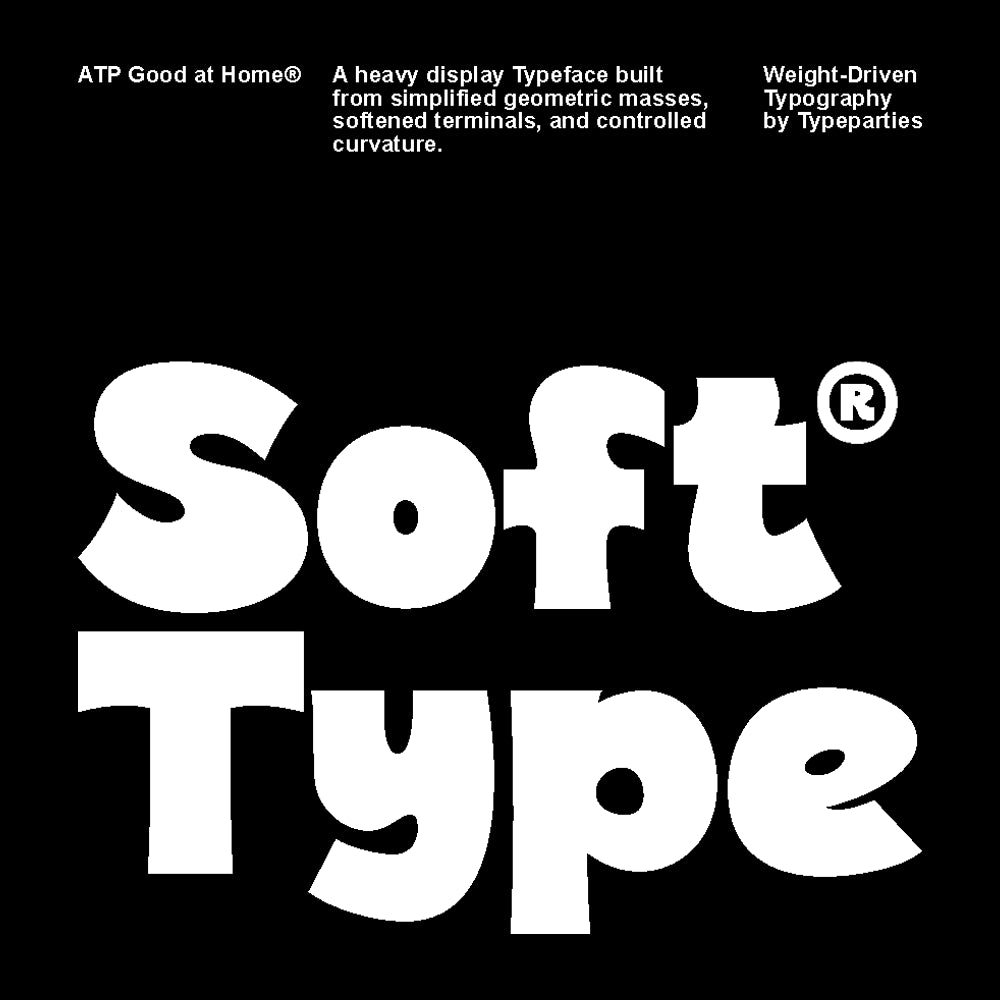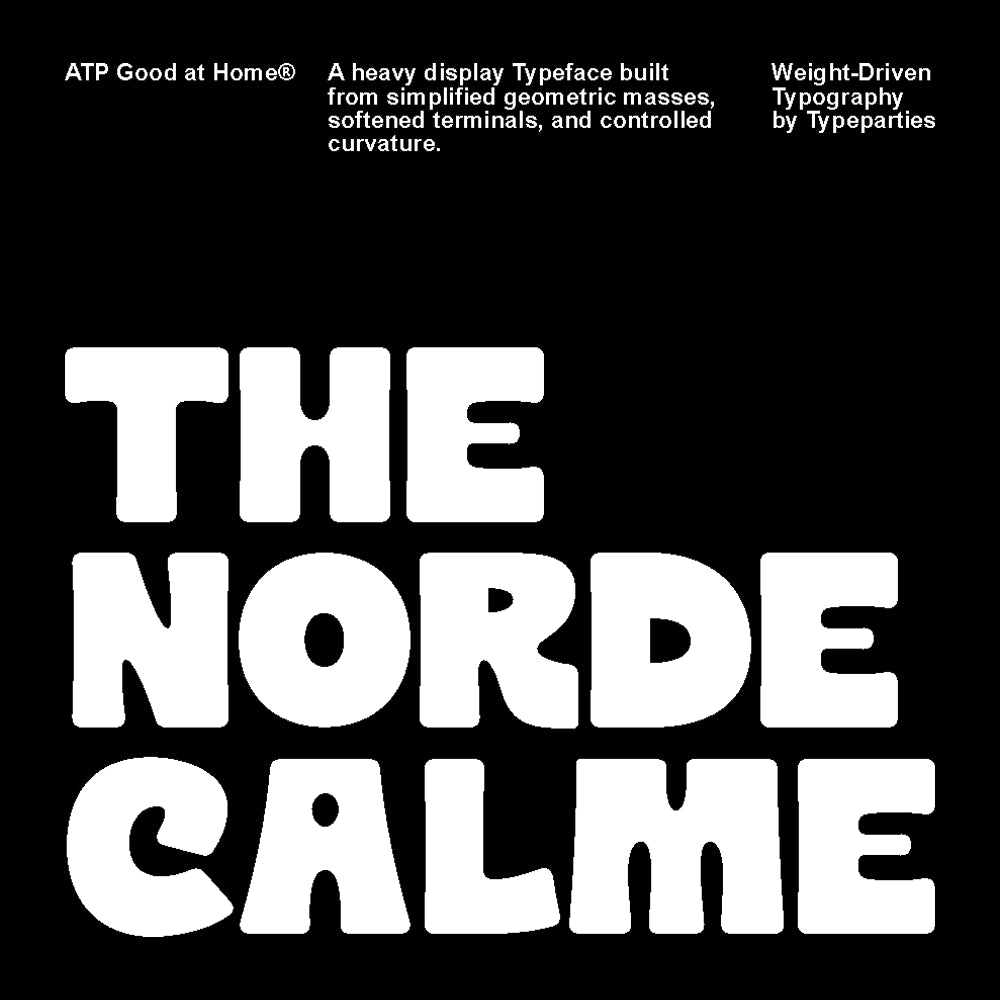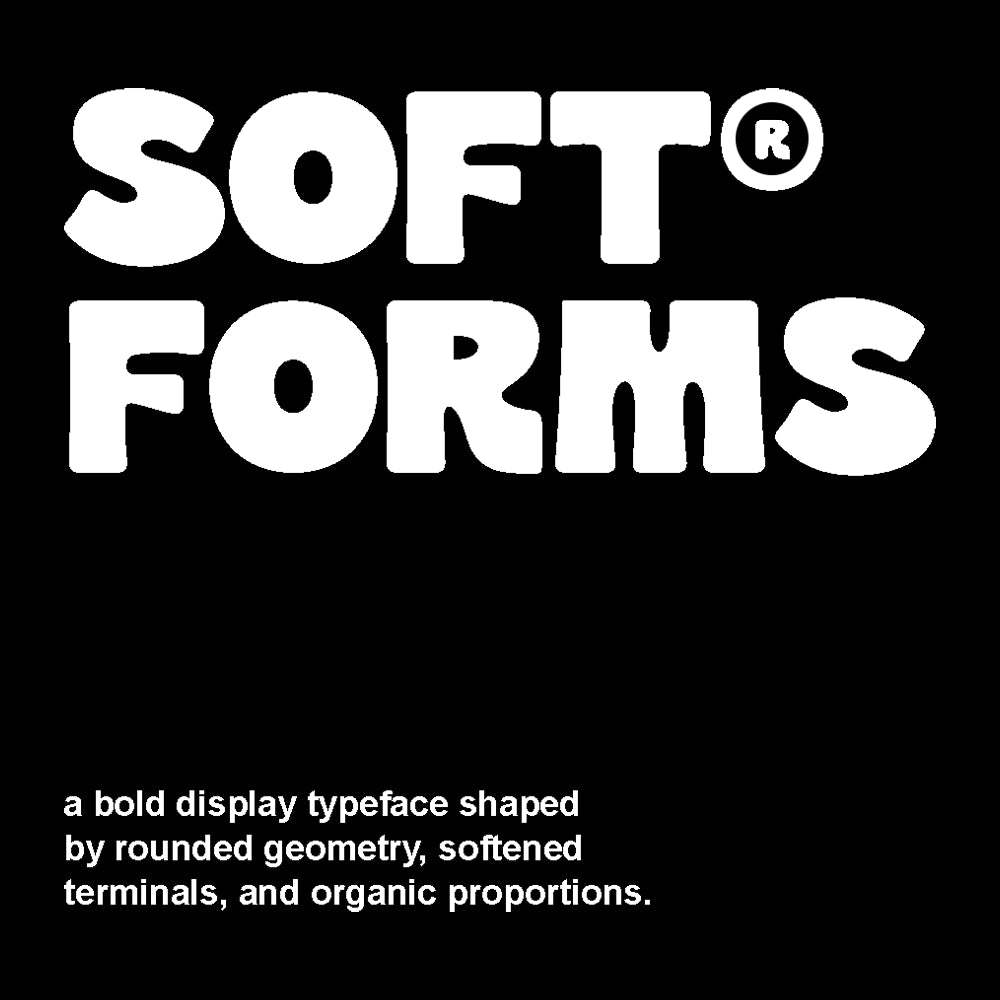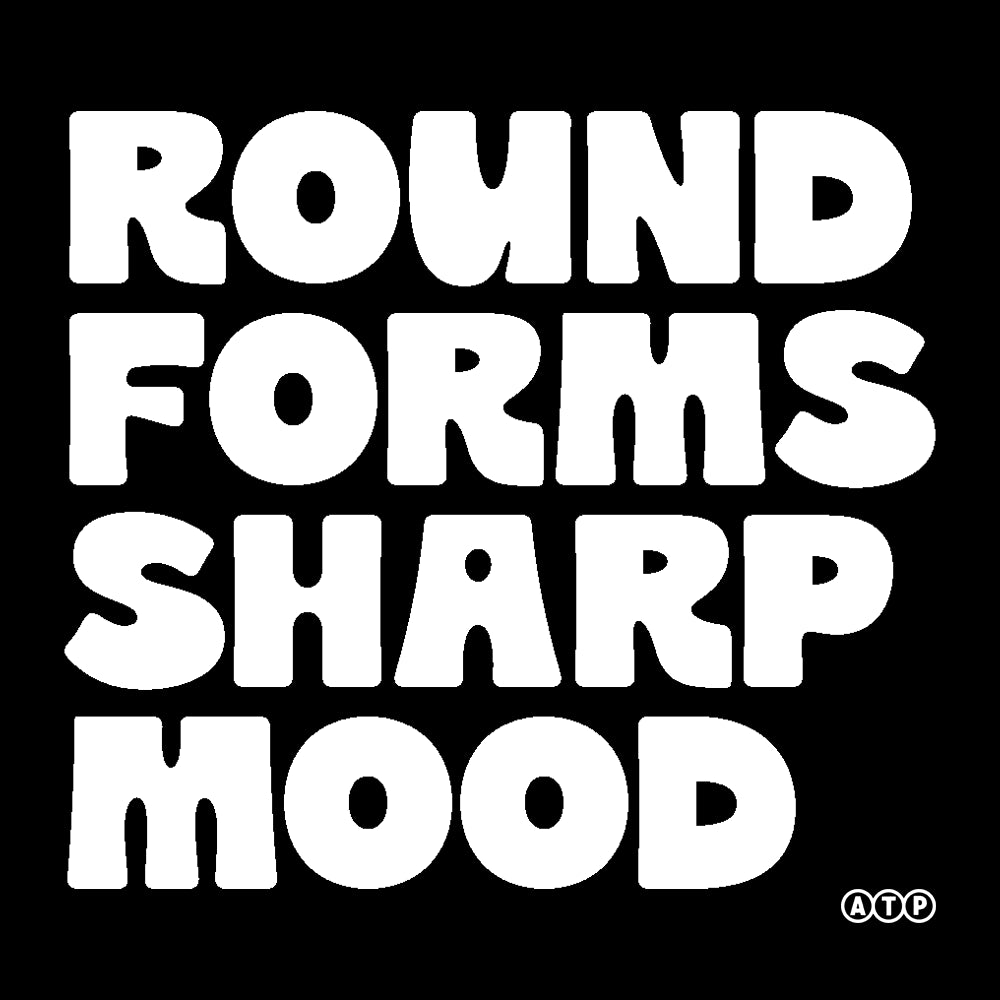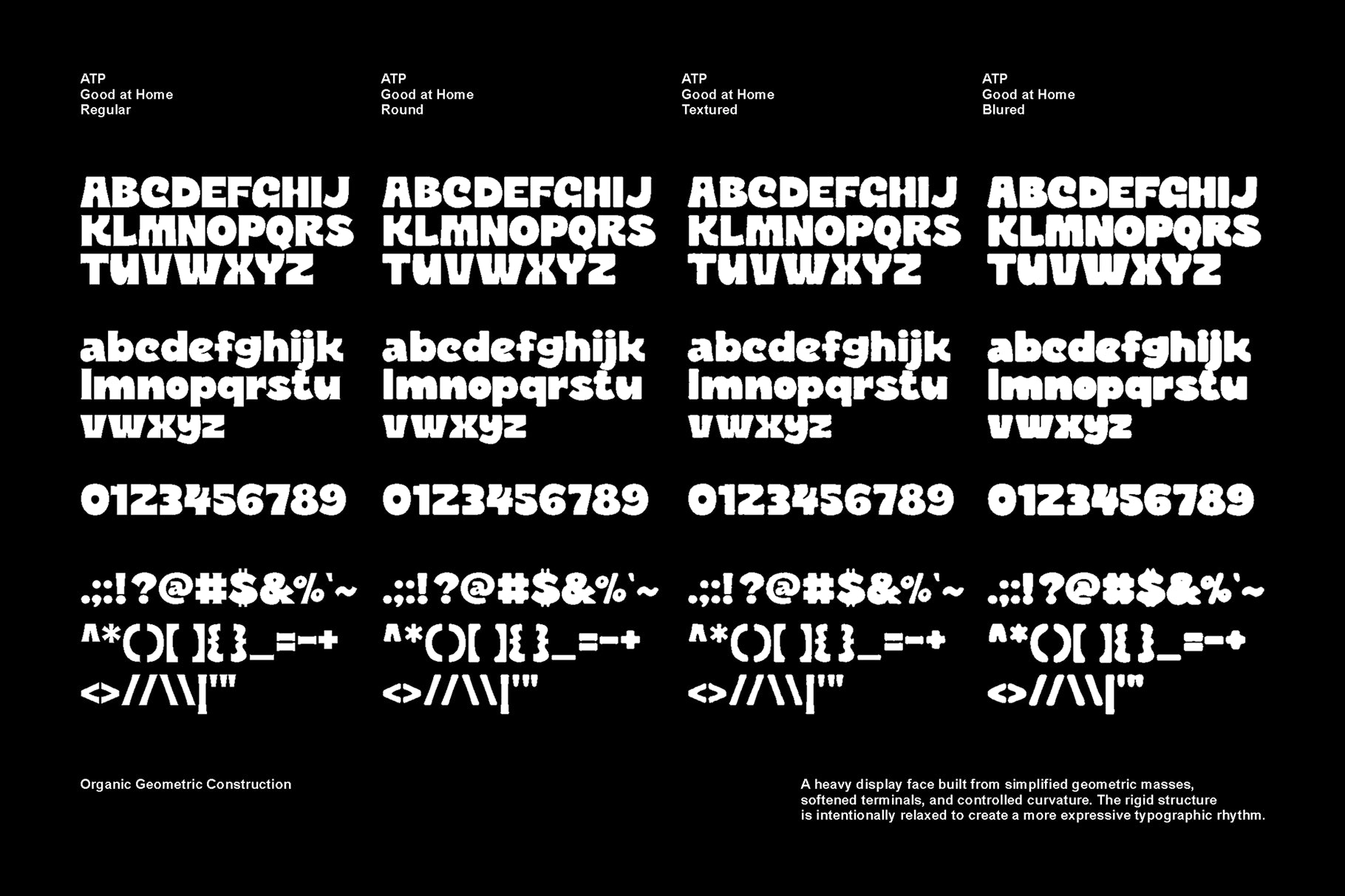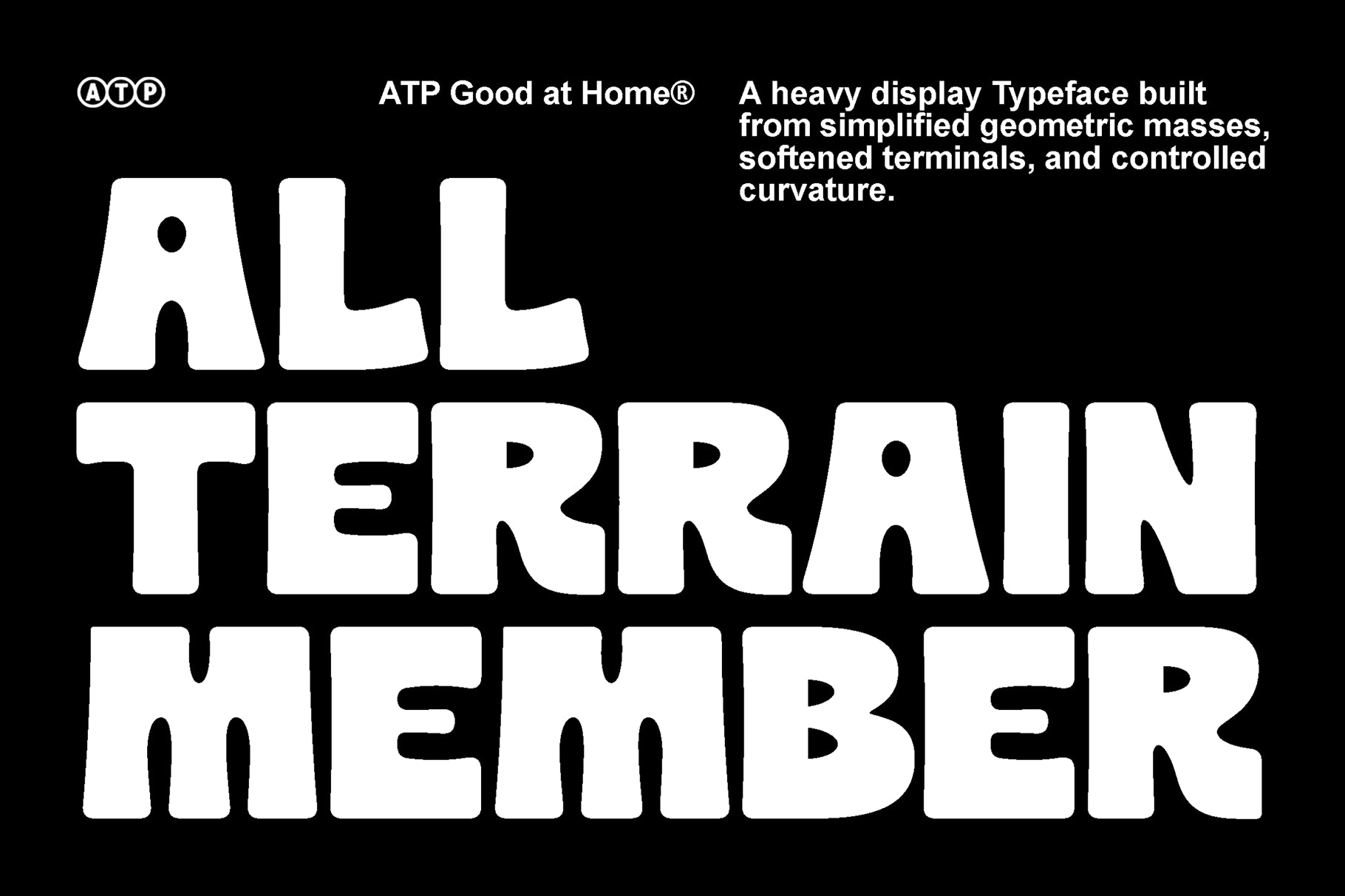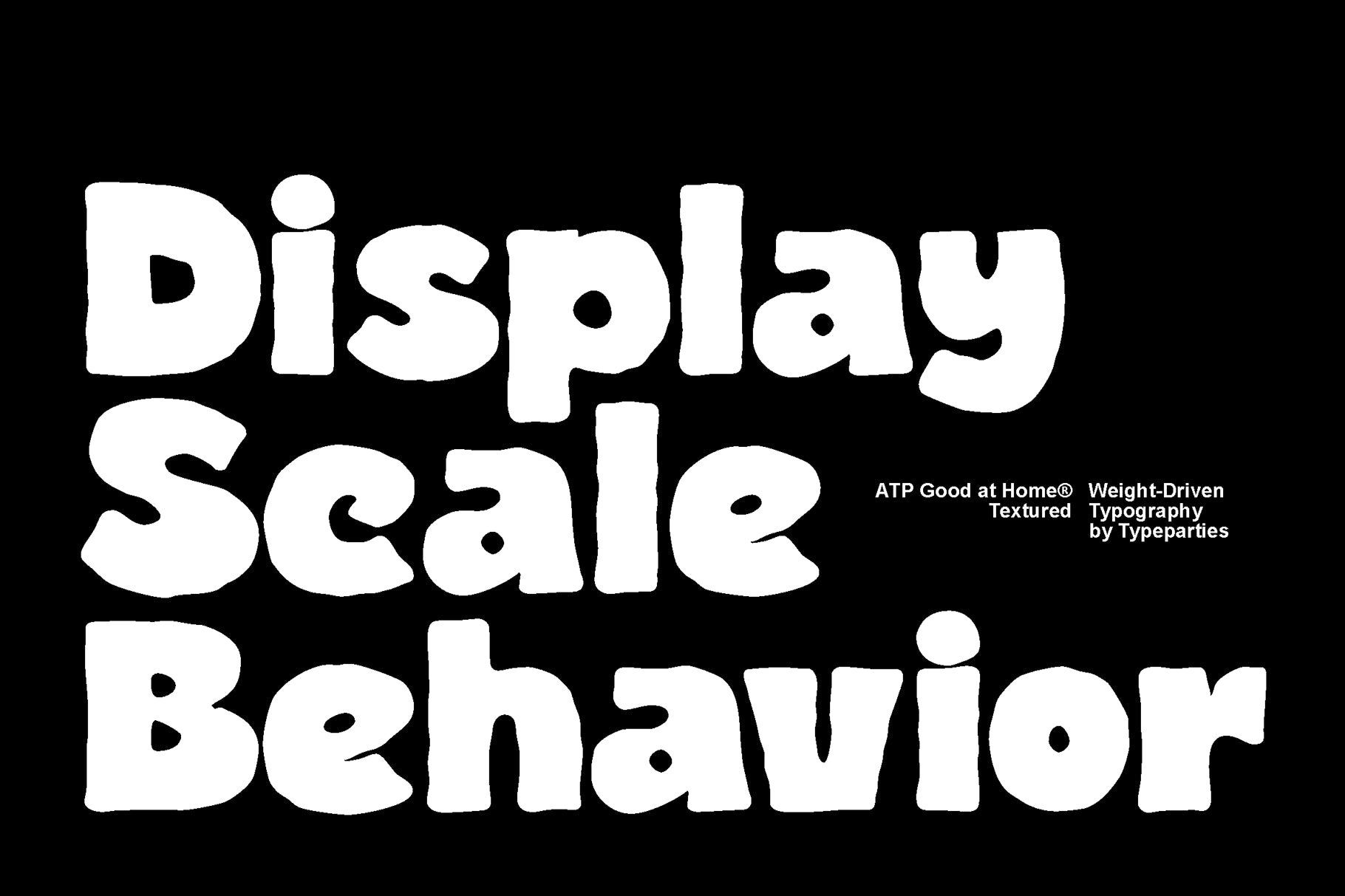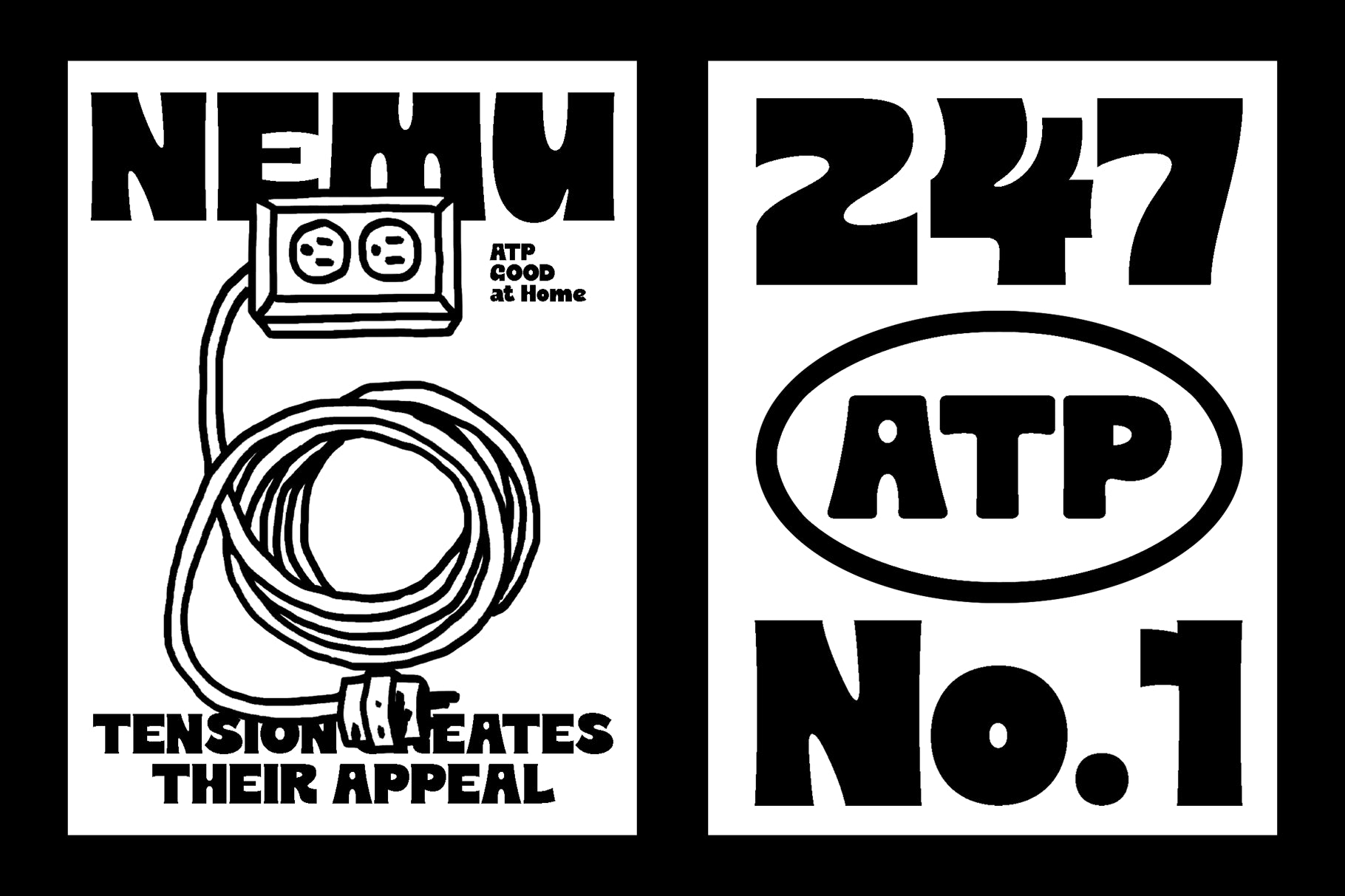
Good at Home - Chunky Display Typeface
Good at Home is a bold experimental display typeface built around soft geometric forms, exaggerated proportions, and playful structural distortion. Its heavy weight creates an immediate visual impact, while rounded counters and unconventional terminals give the characters a warm, almost tactile personality.
The letterforms balance geometric mass with organic deformation. Circular forms are intentionally oversized, while selected strokes feature abrupt cuts, inward notches, and asymmetrical terminals. This creates a subtle tension between rigid construction and fluid movement, making the typeface feel expressive rather than mechanically geometric.
Good at Home is a bold experimental display typeface featuring soft geometric forms and exaggerated proportions. It includes uppercase and lowercase letters, numerics, punctuation, and multilingual support, available in multiple formats (.otf, .ttf, .woff, .woff2).